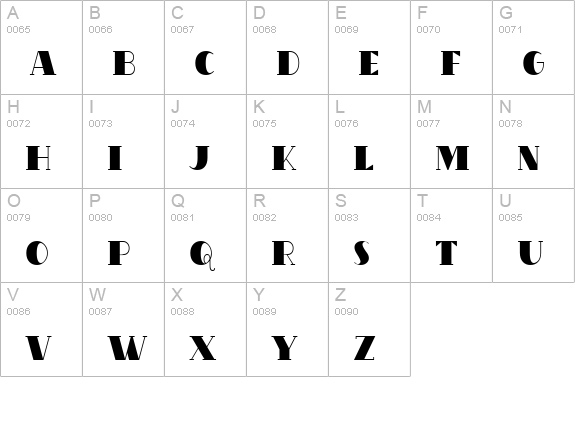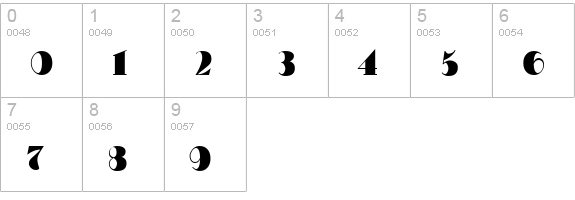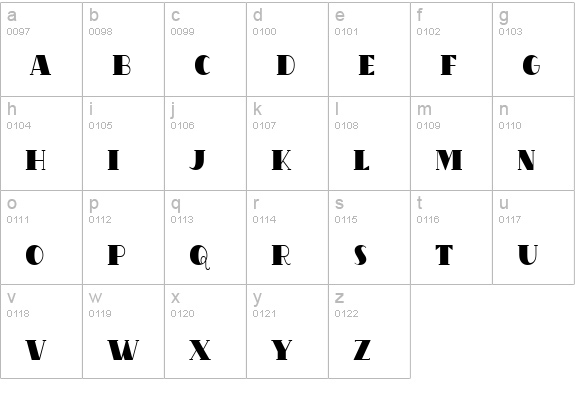
OakParkAve Font Details
OakParkAve font is a stunning display font that exudes elegance and sophistication. Its sleek and modern design makes it perfect for a wide range of design projects, from branding to packaging to editorial design. The font features clean lines and sharp edges that add a touch of refinement to any text. What sets OakParkAve font apart is not only its stylish appearance but also the fact that it is completely free to download. Yes, you read that right - this gorgeous font is freely available for download at FontsMarket.com. So whether you're a professional designer looking to add a new font to your collection or a hobbyist looking to elevate your creative projects, OakParkAve font is the perfect choice. Download it today and let your designs shine with this exquisite typeface.